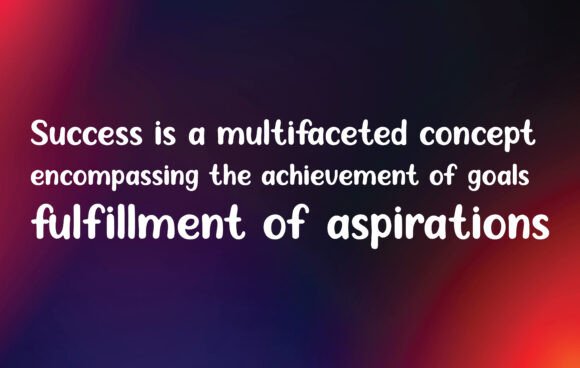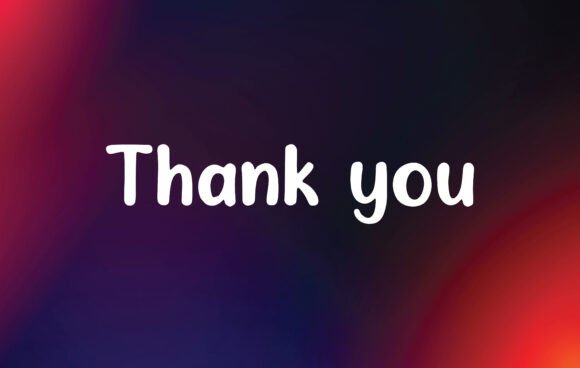
Introducing Elise Font: Elevate Your Designs with Elegance and Versatility
In the world of typography, a font can make all the difference in bringing your creative ideas to life. If you’re a designer, crafter, or simply someone who appreciates the art of beautiful text, you’re in luck. Say hello to Elise Font, a stunning typeface designed to be a true favorite among creatives. With its exceptional legibility and versatility, Elise Font has the potential to take your designs to the highest level.
What Makes Elise Font Stand Out?
Elise Font is more than just a pretty face; it’s a highly functional and adaptable typeface that can be used in a wide range of design applications. Whether you’re working on magazine headlines, t-shirts, social media graphics, branding materials, wedding invitations, cards, or any other project that requires beautiful text, Elise Font is the perfect choice.
One of the key features that sets Elise Font apart is its exceptional legibility. Even at smaller sizes, this font remains clear and easy to read, making it ideal for body text. At the same time, it looks great as a title font, adding a touch of elegance and sophistication to your designs.
Endless Design Possibilities with Elise Font
The versatility of Elise Font is truly one of its greatest strengths. This font can be used in a multitude of design contexts, from:
- Magazine headlines: Add a touch of glamour and sophistication to your magazine spreads with Elise Font.
- T-shirts and apparel: Create eye-catching and stylish designs for t-shirts, hoodies, and other clothing items.
- Social media graphics: Elevate your social media presence with beautiful and engaging graphics featuring Elise Font.
- Branding and advertising: Use Elise Font to create memorable and impactful branding materials, such as logos, brochures, and flyers.
- Wedding invitations and cards: Add a touch of elegance and romance to your wedding invitations, cards, and other stationery.
Why Choose Elise Font?
So, what makes Elise Font the perfect choice for your design projects? Here are just a few reasons:
- Legibility: Elise Font is designed to be easy to read, even at smaller sizes.
- Versatility: This font can be used in a wide range of design applications, from titles to body text.
- Elegance: Elise Font adds a touch of sophistication and elegance to any design.
- Creativity: With Elise Font, you can bring your creative ideas to life and take your designs to new heights.